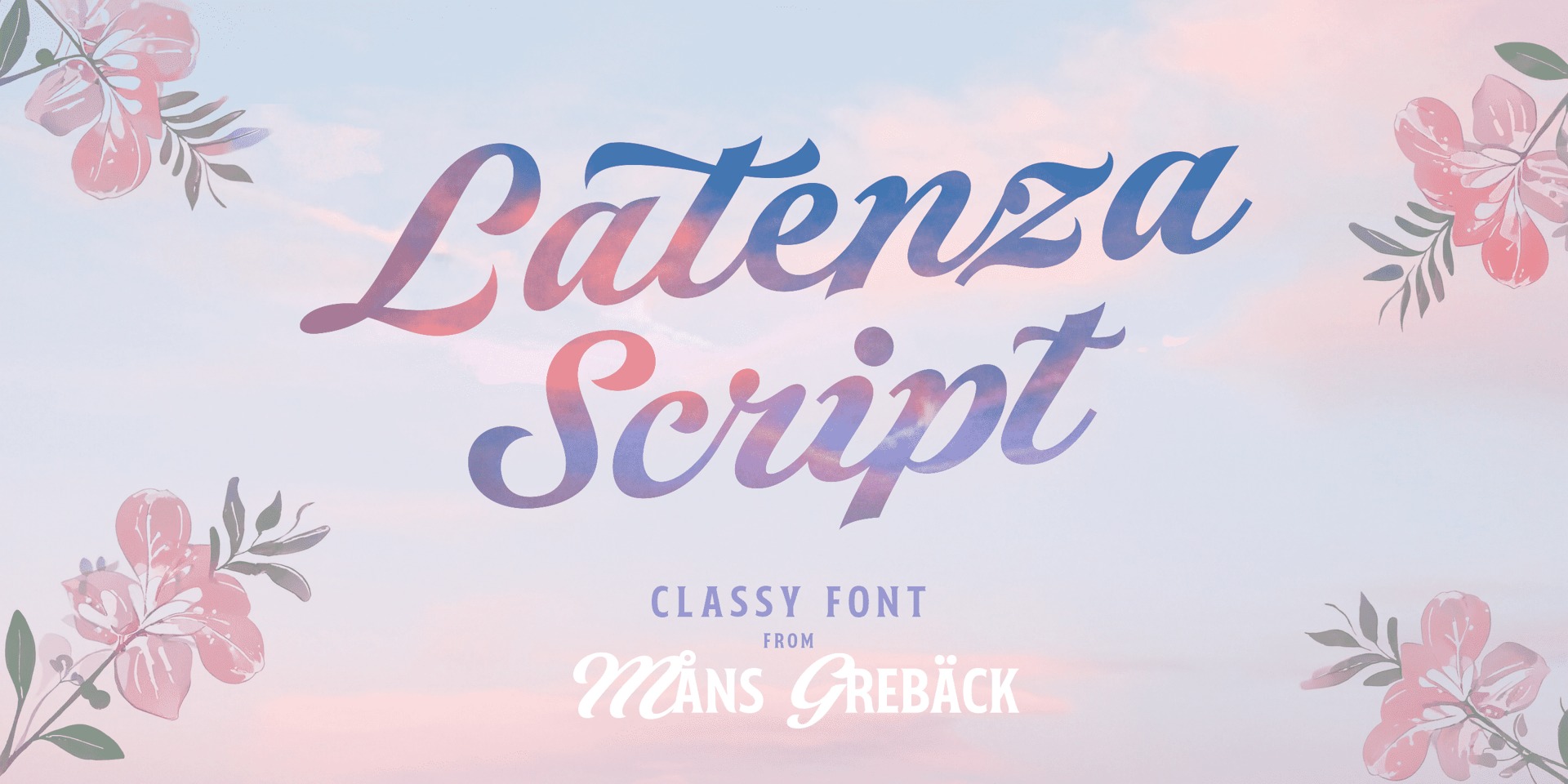
Latenza Script Font
Latenza Script Font is a professionally designed typeface that delivers clarity, structure, and consistent performance across various design applications. Latenza Script is a flowing calligraphic script with a soft, composed rhythm.
The letters move with long strokes and gentle turns, giving the text a calm confidence rather than a loud flourish. It carries a classic feeling, but with relaxed proportions that make it feel natural and contemporary. The connections are smooth and intentional, allowing words to breathe while still holding together as a unified line.
The font is built with advanced OpenType functionality and guaranteed top-notch quality, containing stylistic and contextual alternates, ligatures and more automatic and manual features; all to give you full control and customizability.
It has extensive lingual support, covering all Latin-based languages, from North Europa to South Africa, from America to South-East Asia. It contains all characters and symbols you’ll ever need, including all punctuation and numbers.
Designed by Måns Grebäck, Latenza Script focuses on balance and readability within a handwritten form. The design favors clarity and elegance, letting the details support the text instead of overpowering it.